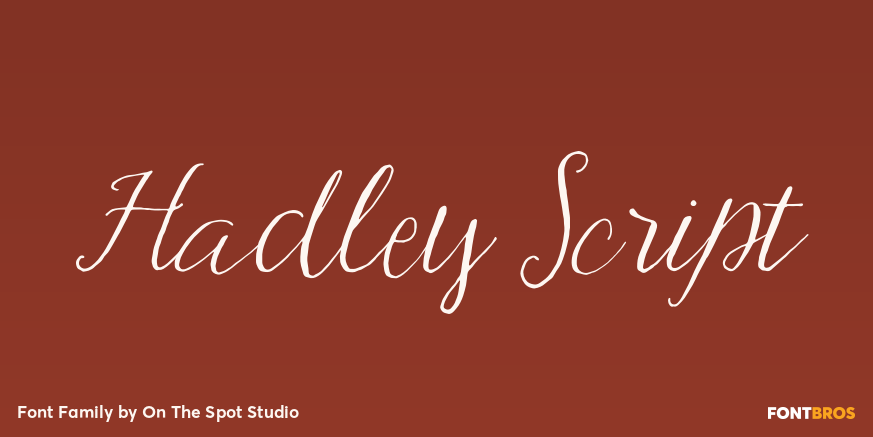
HomeFont BrosHandwrittenHadley Script HandwrittenScripts: FormalScripts: Casual Hadley Script FacebookXPinterestWhatsApp 1 of 1 About Hadley Script is a hand drawn italic script perfect for your client projects or the self proclaimed font-a-holic! Includes numbers and alpha!  DOWNLOAD NOW People also explored Christmas Arrows Font Speed Gaspol Font Coffina Font Ricksons Font King Smile Font Marlyland Font Coffee Style Font Explore Magic Font Glowing Jellyfish Font 420 0 TagsHadley Script Font Previous articleFT BronsonNext articleYWFT Harmony LEAVE A REPLY Cancel reply Comment: Please enter your comment! Name:* Please enter your name here Email:* You have entered an incorrect email address! Please enter your email address here Website: Save my name, email, and website in this browser for the next time I comment. Personal Use Free Christmas Diary Personal Use Free Read more about this font Aliqa Personal Use Free Read more about this font Oito Personal Use Free Read more about this font Omira Personal Use Free Read more about this font BLOG How to Cut Any Font on Cricut: Convert a Font to SVG (Free) Turn any font into a clean SVG so it cuts crisp on Cricut - a quick 3-step workflow using a free font-to-SVG tool. Modern Sans-Serif Fonts That Brands Love in 2025 Exploring Font Trends Best Fonts for T-Shirt Design – Top 2025 Picks